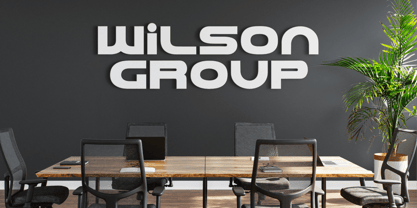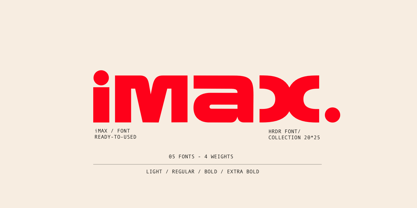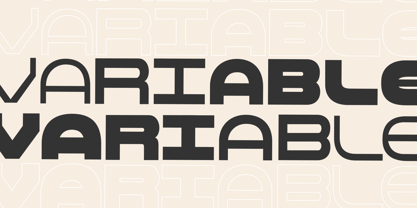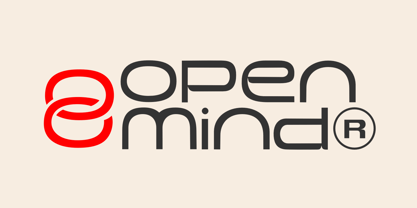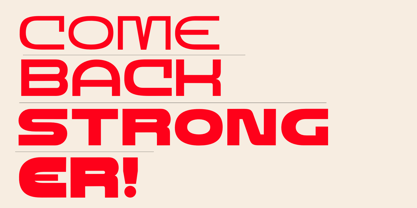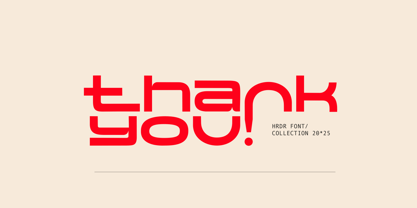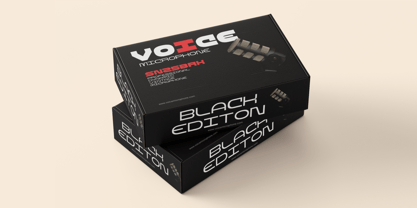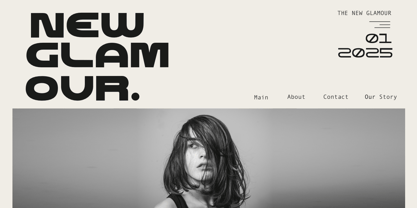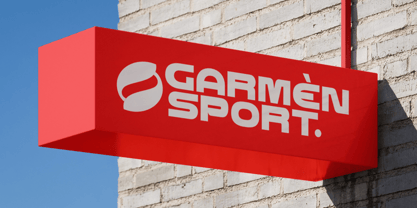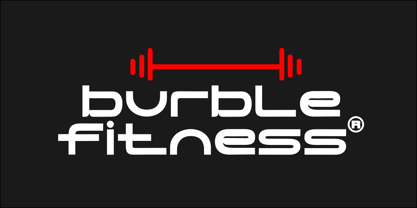
Imax Light
by HRDR
The Imax Light Font Family was designed by Dede Mulyadi and published by HRDR. Imax Light contains 5 styles and family package options.
Imax is a modern type style that is perfect for logos, branding , film, apparel, motion graphic, logotype, signage, flyer, packaging and more. It has been designed as a variable font, there are five widths in the font family so this will give you just as much access to the creativity this font can provide. This font family brings a strong feel yet elegant look that you can use for many purposes.